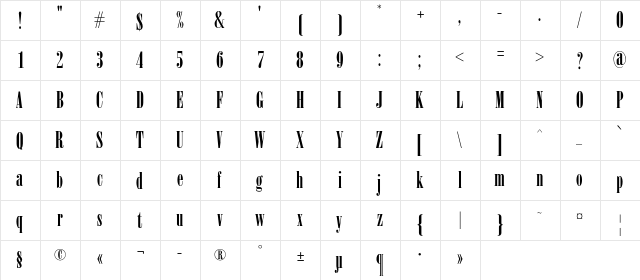
ArsisC Regular
Design Context for ArsisC Typeface
ArsisC takes a measured approach to typography — its balanced proportions and neutral character make it a reliable workhorse for both digital and print work.